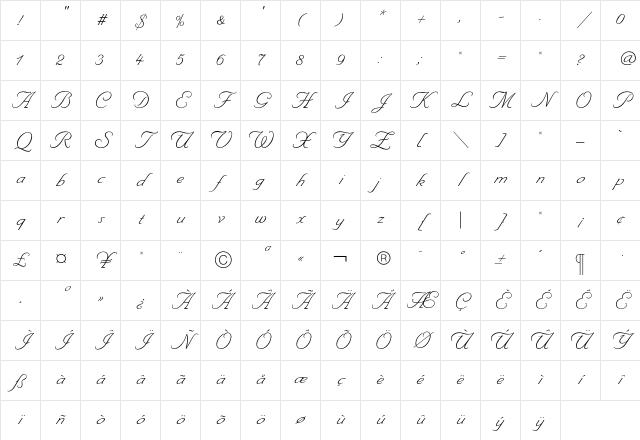
ByronRR Regular
ByronRR Family
Design Context for ByronRR
ByronRR is a composed and adaptable typeface that performs quietly and consistently across a wide range of design contexts.